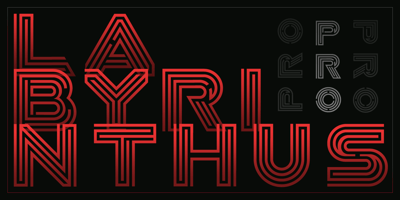
Labyrinthus Pro
Labyrinthus Pro font
Labyrinthus Pro Font Family was designed by Antonio Cerri and published by Cerri Antonio. Labyrinthus Pro contains 1 styles and family package options. LABYRINTHUS PRO is a multiline decorative font, works very well as a type of identity logo, poster and 3d works. It continues the tradition of precedent LABYRINTHUS but with a hard linear impact. Its interesting to note that with it its possible to play with the multiline concept to create endless overlapping geometric creations.